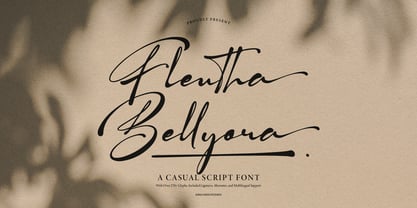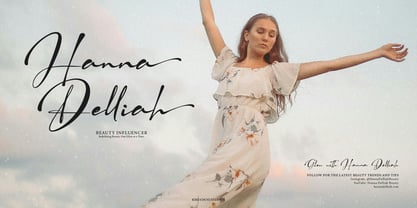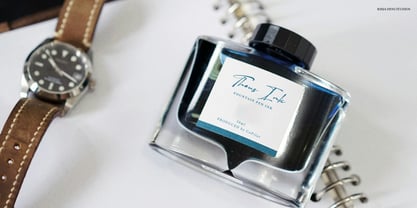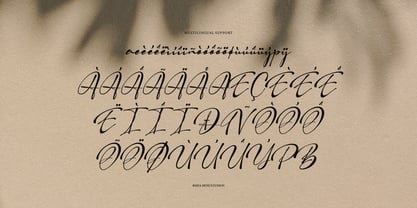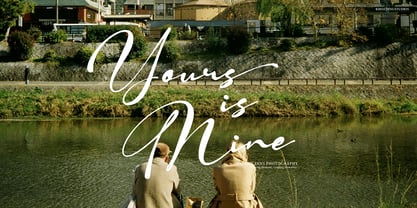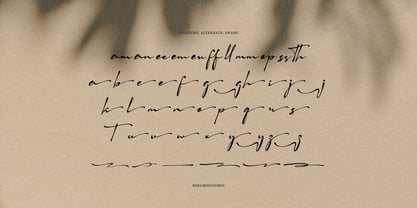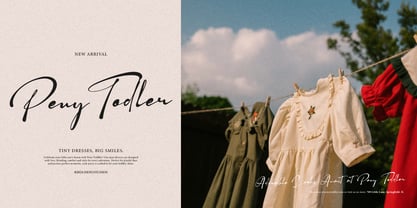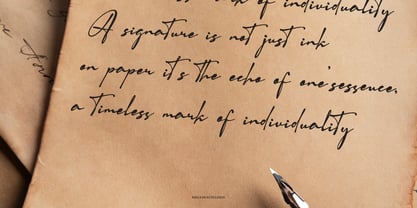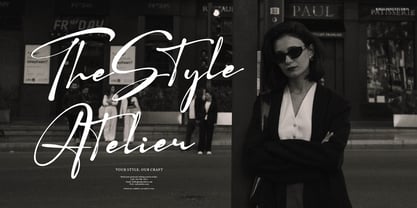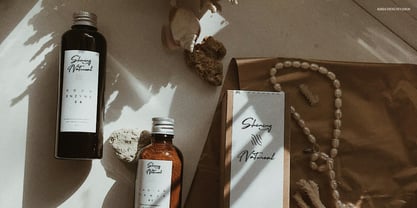
Flentha Bellyora
The Flentha Bellyora Font Family was designed by Dede Nugraha and published by Denustudio. Flentha Bellyora contains 2 styles and family package options. More about this family
Flentha Bellyora | Casual Script Font, from Denustudios, suitable for any projects such as: logos, branding projects, homeware designs, product packaging, mugs, quotes, posters, shopping bags, t-shirts, book covers, name card, invitation cards, greeting cards, label, photography, watermark, special events, and all your other lovely projects that need a Casual Script Font taste.
• Regular and Italic
• Standard glyphs
• Alternate and Ligature
• Fonts include multilingual support